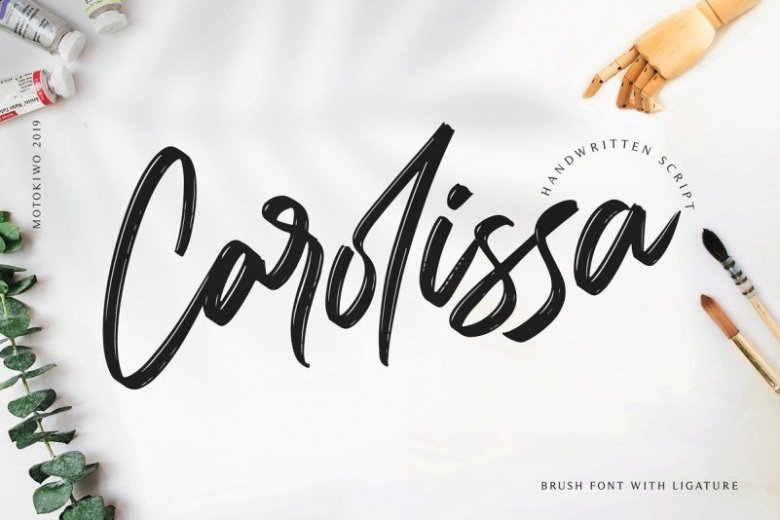
Carolissa Brush Font
A new handwritten brush script font by Motokiwo. Perfect for adding a little spice to your designs and absolutely ideal for logo creation.
Introducing Carolissa Font. Carolissa is script brush font with handwriting style, it’s simple and classy font that suitable for various design project. With dynamic and spontaneous flow gesture, Carolissa will add more drama to your project.